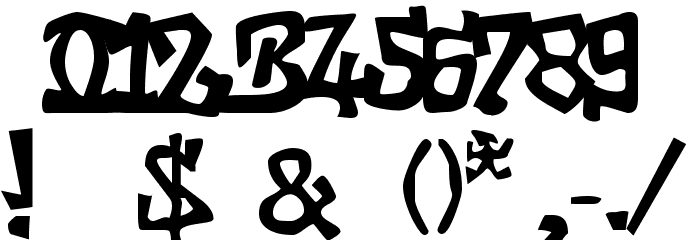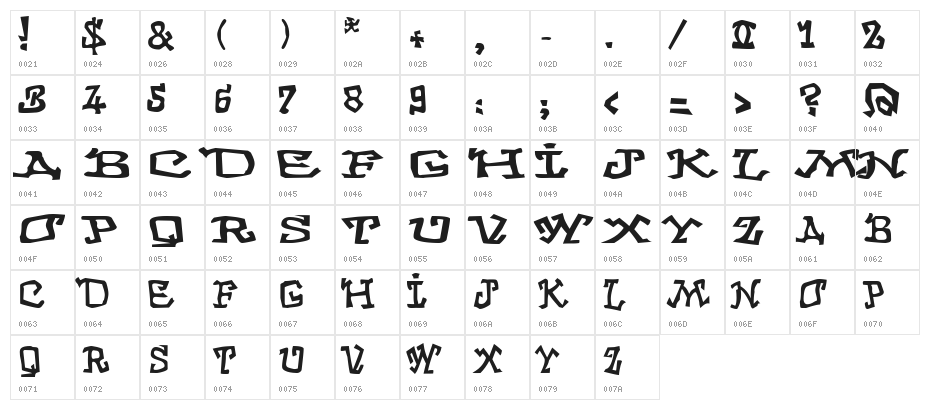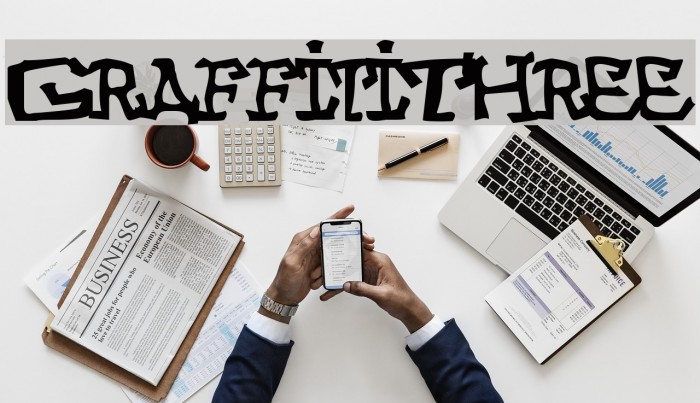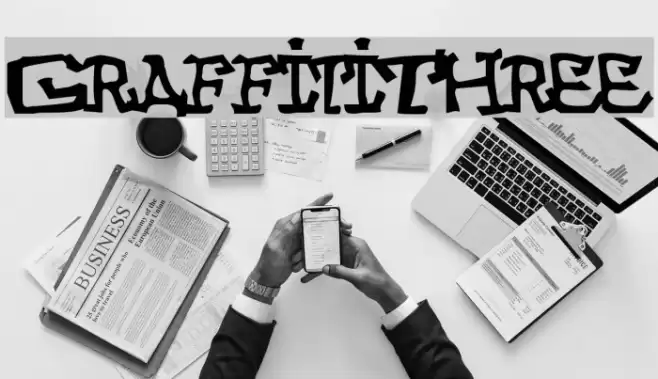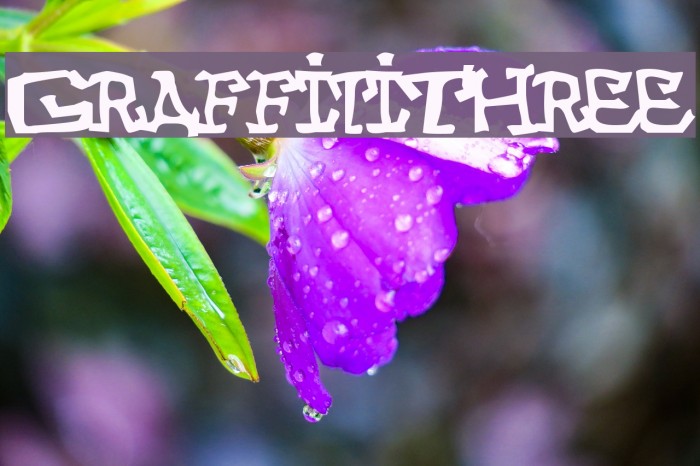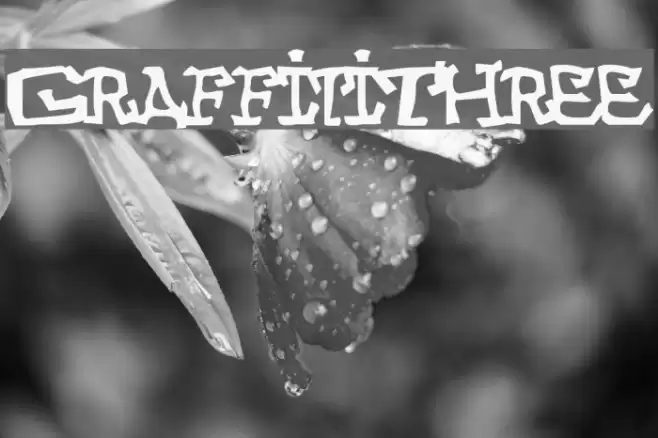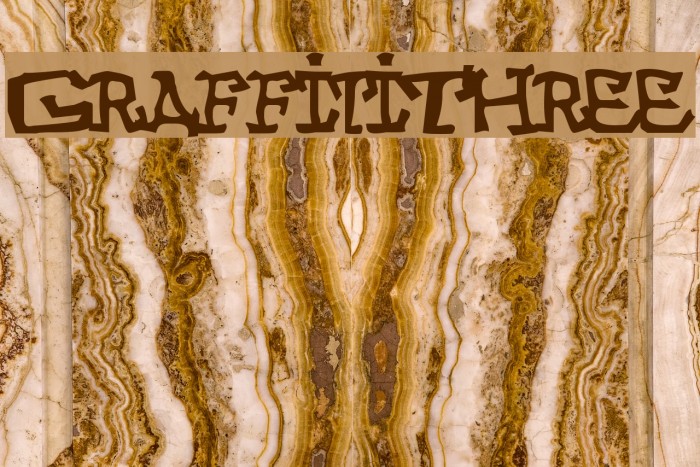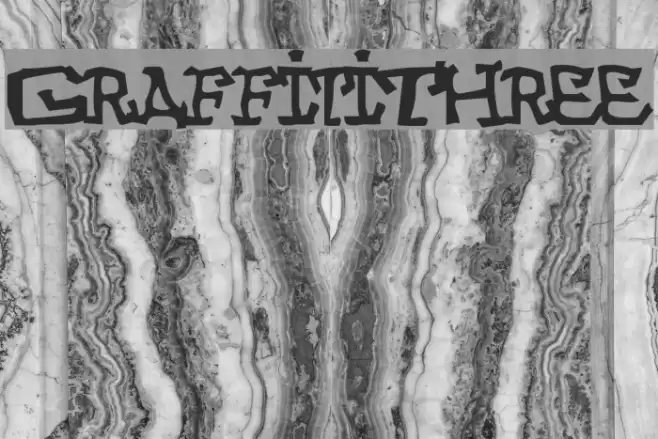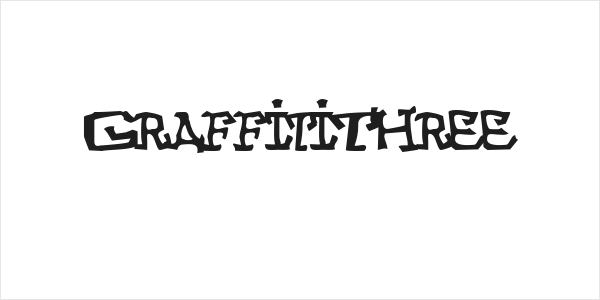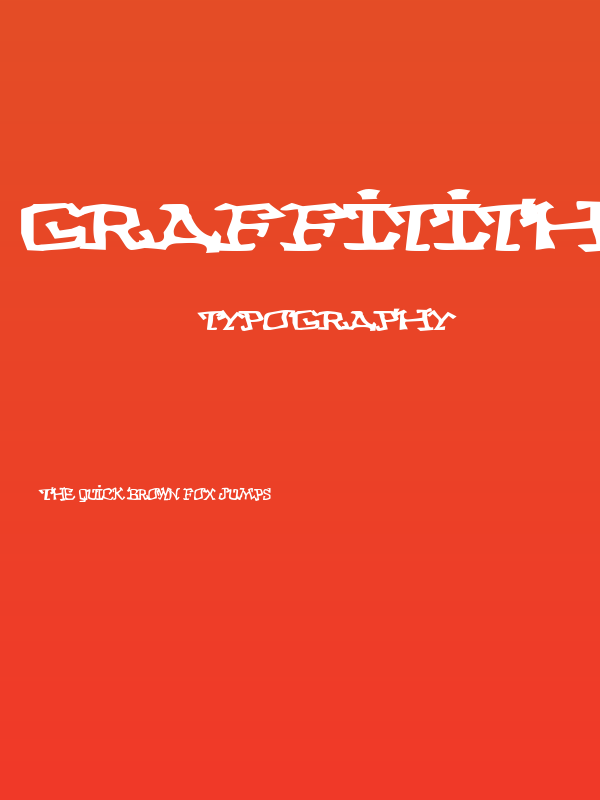
GraffitiThree Font
GraffitiThree Description
This font embodies a bold and edgy graffiti style, characterized by its angular and jagged letterforms. The uppercase and lowercase letters share a consistent aesthetic, with exaggerated strokes and sharp edges that mimic the dynamic and rebellious nature of street art. The numbers and special characters maintain this theme, offering a cohesive look across all glyphs. The font's design is highly decorative, making it ideal for projects that require a strong visual impact. Its unique style is reminiscent of urban environments and contemporary art scenes.
| Overall Style | Modern, Urban |
| Use Case | Logos, Posters, Album Covers |
| Proposed Projects | Ideal for urban-themed designs, street art posters, music album covers, and edgy branding projects. |